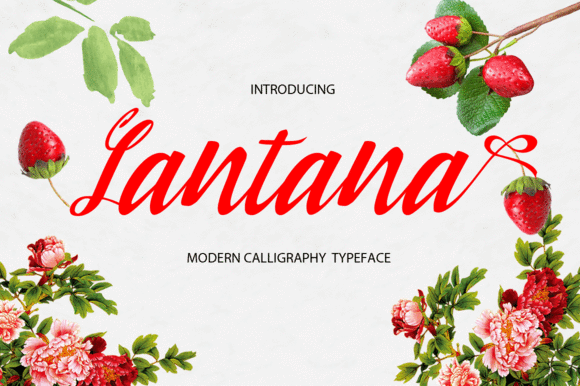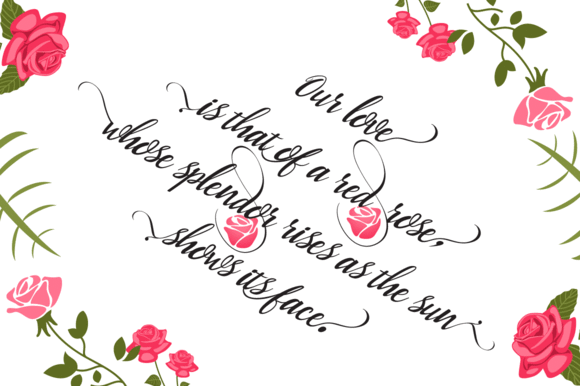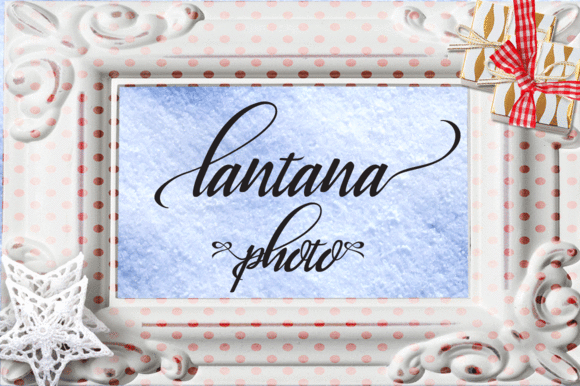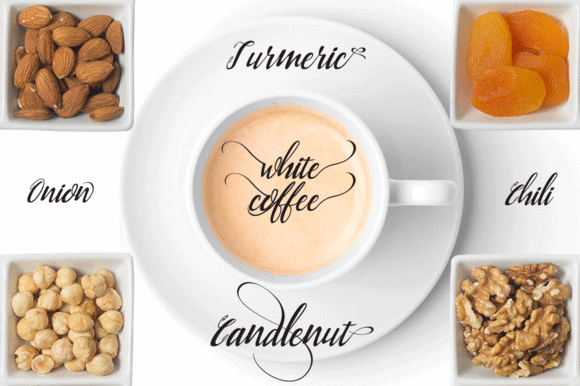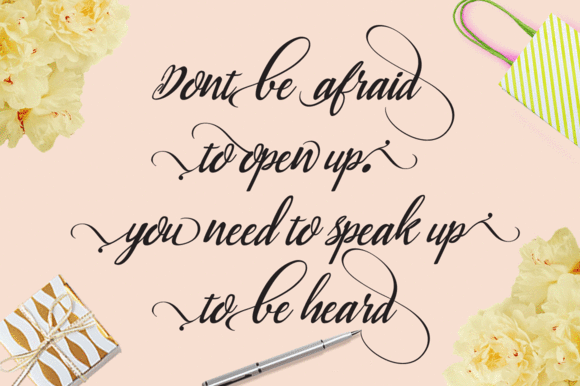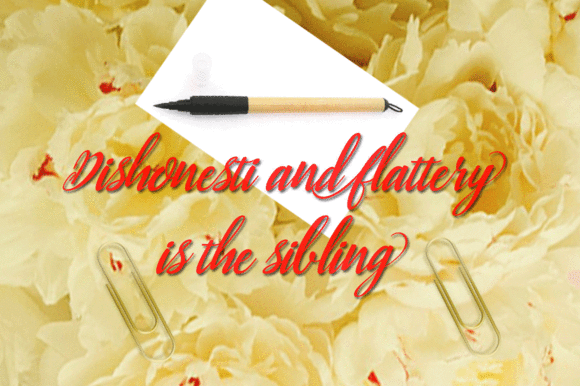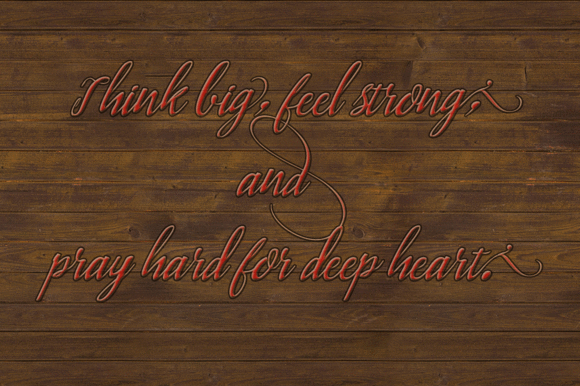
Lantana Font
About Lantana Font
Lantana is a modern calligraphy typeface that will allow you to make your designs in a flash and will guarantee you to make your text stand out. It can be used for various purposes such as headings, logos, invitations, t-shirt designs, greeting cards, posters, labels, book covers, brochures, and much more.